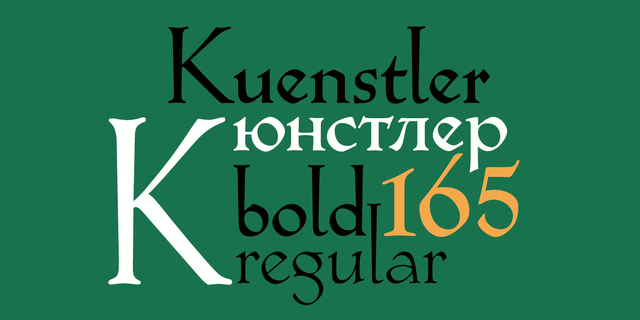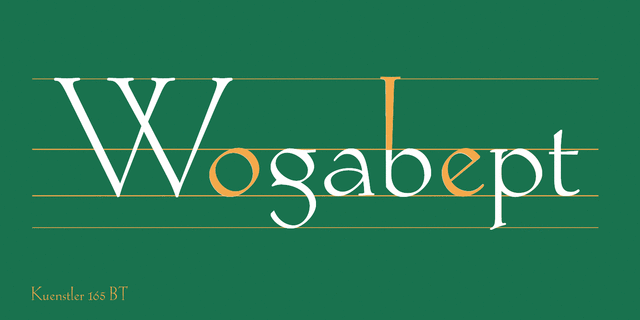
About Kuenstler 165Bitstream typeface based on Koch Antiqua by Rudolph Koch (Klingspor, 1922). Koch Antiqua, also known as Locarno and Eve, is the most popular face of one of the greatest lettering artists of the 20th century. This delicate display face has a small x-height, very tall ascenders, and main strokes that taper gracefully downward. Koch-Antiqua appeared extensively in advertising between the wars. The typeface should be used sparingly for a distinctive look in advertising, book, and other printed products. Two weights of Cyrillic version including alternative lc characters were developed by Isabella Chaeva and released by ParaType in 2008.